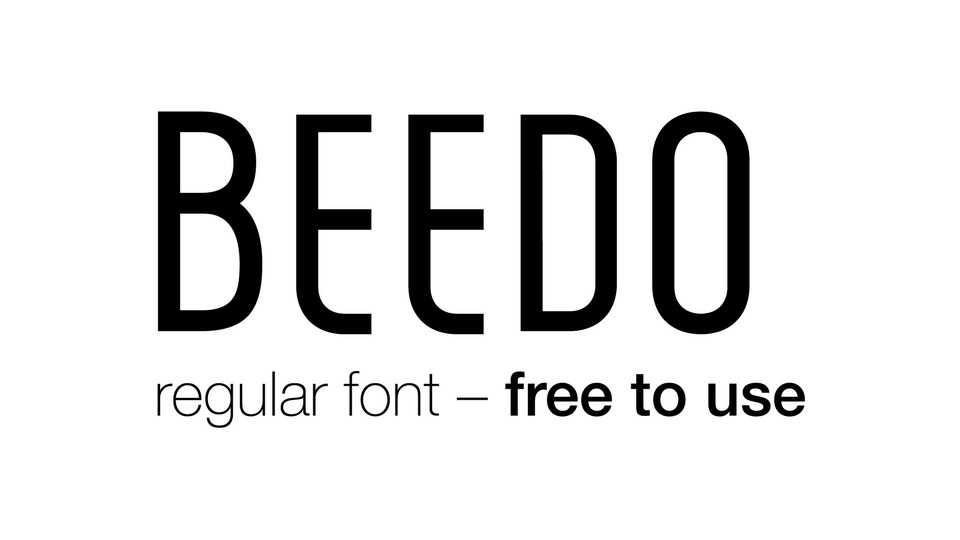
Download Beedo font, a tall geometric display typeface with a clean modular look. Beedo font works best for posters and headlines.
Designer: Lenka Volková